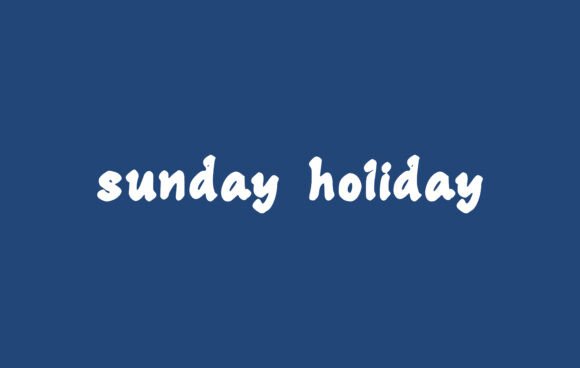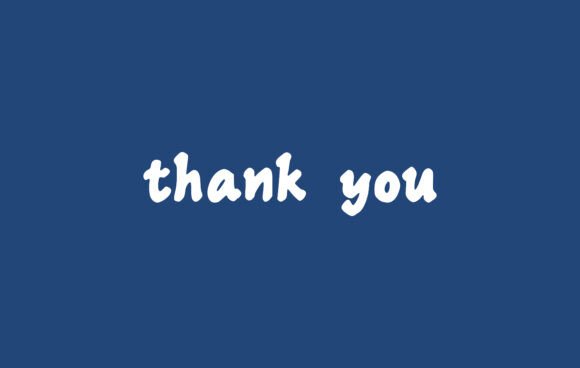
Halle Font: The Ultimate Handwritten Font for Creative Projects
In the world of typography, a good font can make all the difference in bringing your creative ideas to life. If you’re a designer, craftsperson, or simply someone who loves to dabble in DIY projects, you’re likely always on the lookout for the perfect font to add a personal touch to your work. That’s where the Halle font comes in – an authentic handwritten font with a romantic touch that’s sure to capture your heart.
What Makes Halle Font So Special?
Expertly designed to be a true favorite among designers and crafters, the Halle font boasts a unique charm that’s hard to find in other fonts. Its authentic handwritten style gives it a warm, personal feel that’s perfect for a wide range of creative projects. Whether you’re looking to add a touch of elegance to your wedding invitations, create eye-catching social media graphics, or simply want to add some personality to your blog or website, the Halle font is the perfect choice.
Key Features of Halle Font
So, what makes the Halle font so versatile and easy to use? Here are just a few of its key features:
- Legibility: One of the standout features of the Halle font is its exceptional legibility. Whether you’re using it as a title or body text, this font is easy to read and understand, making it perfect for a wide range of applications.
- Romantic Touch: The Halle font has a distinctly romantic feel that’s perfect for wedding invitations, Valentine’s Day cards, and other projects where you want to convey a sense of love and affection.
- Flexibility: This font is incredibly versatile and can be used for a wide range of creative projects, from magazine headlines and social media graphics to branding and packaging.
So, what kinds of projects are best suited to the Halle font? The answer is – almost any! Here are just a few ideas to get you started:
- Magazine Headlines: Add a touch of elegance and sophistication to your magazine headlines with the Halle font.
- Social Media Graphics: Create eye-catching social media graphics that stand out from the crowd with this beautiful handwritten font.
- Wedding Invitations: Make your wedding invitations truly special with the Halle font’s romantic, handwritten style.
- Branding and Packaging: Use the Halle font to add a personal touch to your branding and packaging – perfect for small businesses and crafters.
- Cards and Stationery: Create beautiful, one-of-a-kind cards and stationery with the Halle font’s unique charm.
Why Choose Halle Font?
With so many fonts to choose from, why should you choose the Halle font for your next project? Here are just a few reasons:
- Unique Style: The Halle font has a unique, authentic handwritten style that’s hard to find in other fonts.
- Ease of Use: This font is incredibly easy to use and can be easily integrated into a wide range of design projects.
- High-Quality Design: The Halle font is expertly designed to provide a high-quality, professional finish.
In conclusion, the Halle font is an exceptional handwritten font that’s perfect for designers, crafters, and anyone looking to add a personal touch to their creative projects. With its romantic touch, exceptional legibility, and versatility, this font is sure to become a favorite in your design arsenal. So why wait? Download the Halle font today and take your creative ideas to the next level!